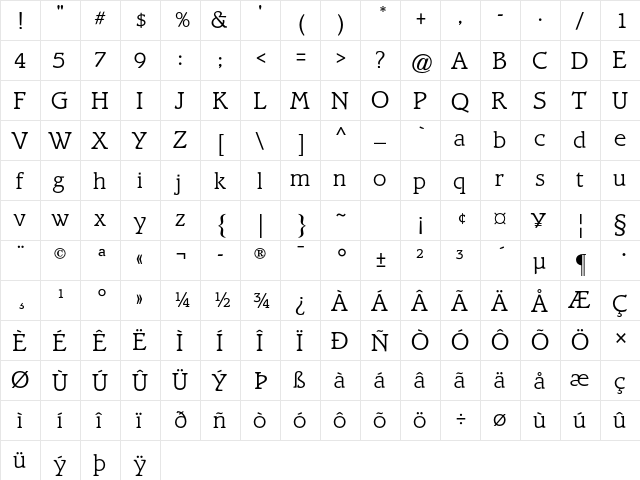
Bramley Std Light Font Preview
Bramley Std Light
Bramley Std Light Font Details
| Designer | Alan Meeks |
Design Context for Bramley Std Typeface
Bramley Std is a composed and adaptable typeface that performs quietly and consistently across a wide range of design contexts. Its slender proportions lend an understated elegance to any composition.